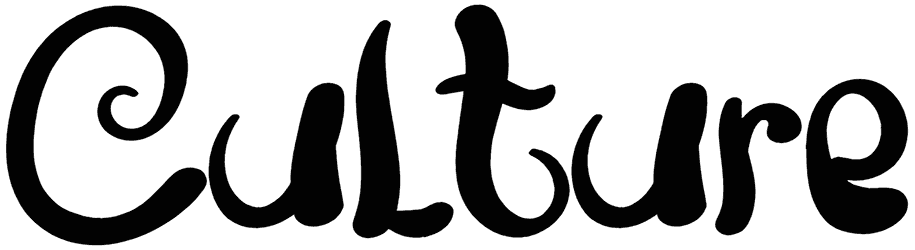
Culture Font
Looking emerged by a furious marker that draws a lovable curly layout to make a creative move in your writing projects. Isn’t this whimsical font gorgeous to draw on your book covers, music albums, postcards, invitations, and TV shows?